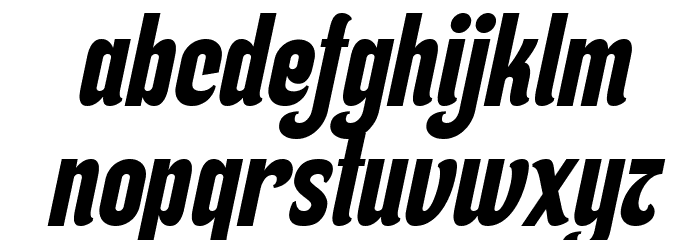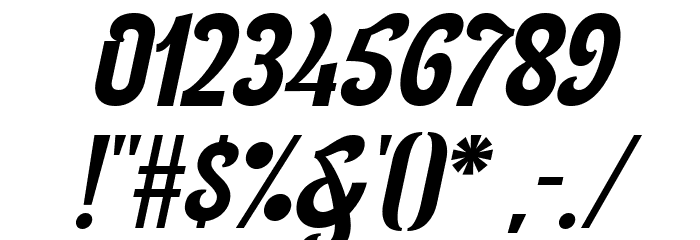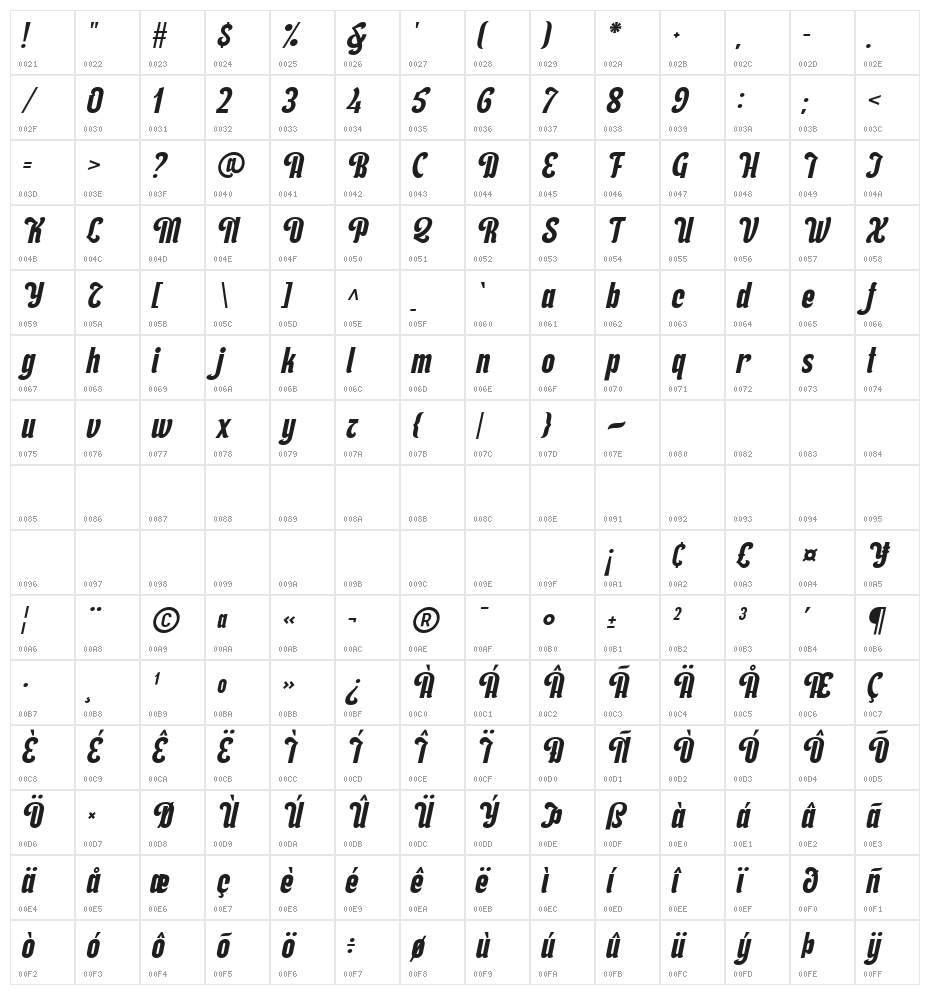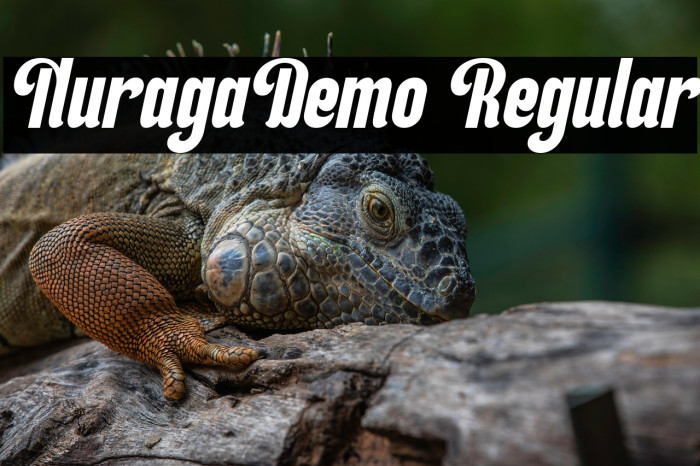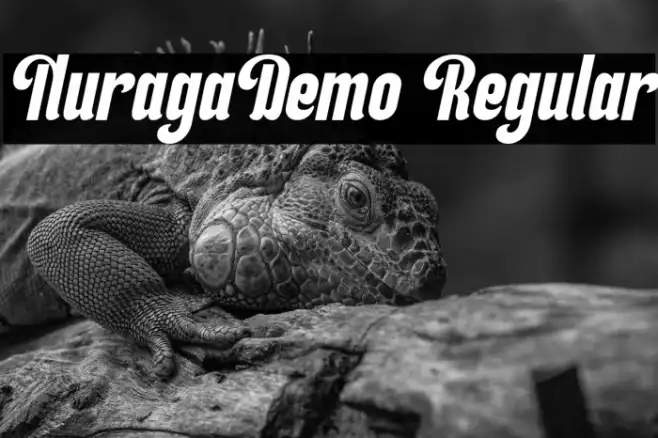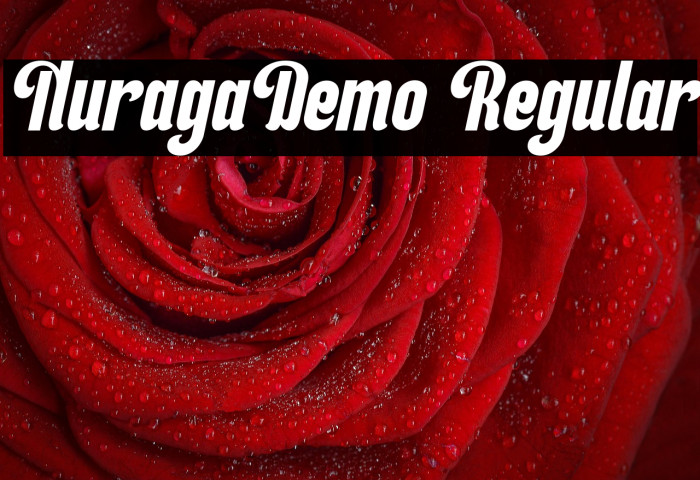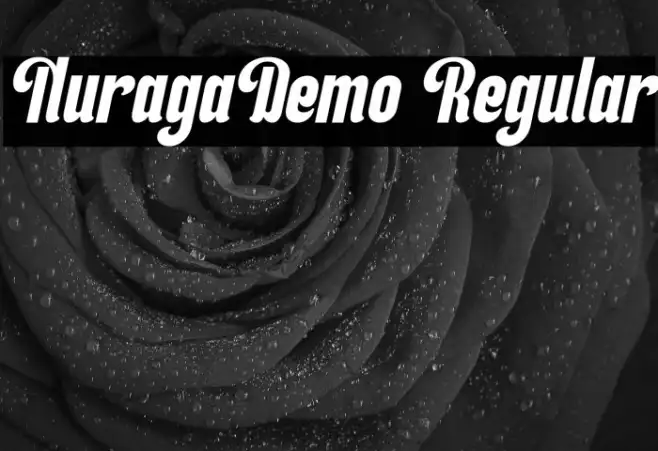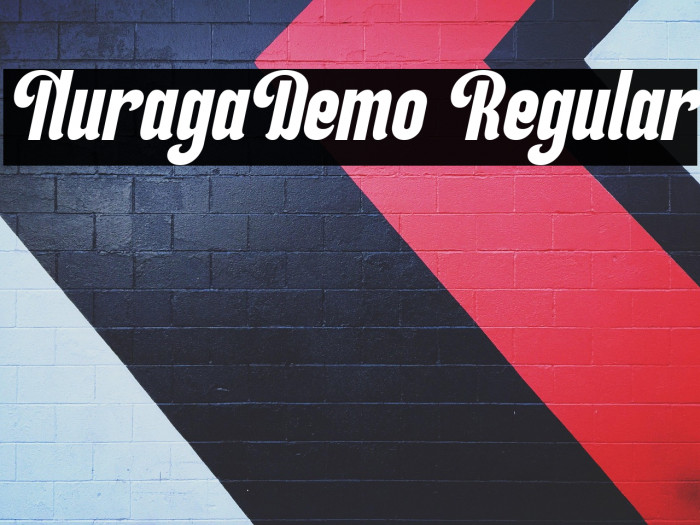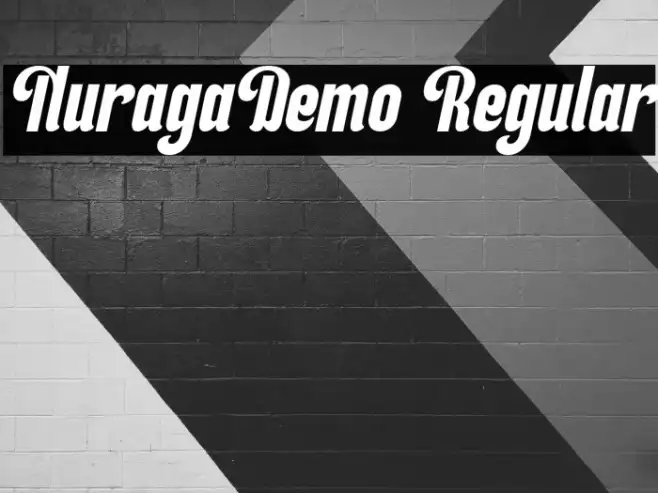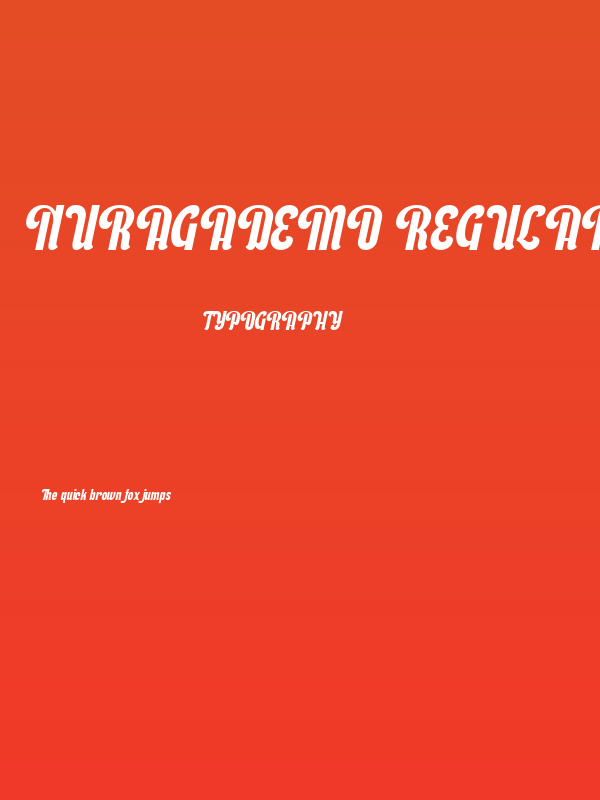
NuragaDemo Regular Font
This font features a bold and dynamic script style with a strong presence. The characters are slightly slanted, giving a sense of motion and fluidity. The strokes are thick and consistent, providing a robust and impactful appearance. The uppercase letters are prominent and commanding, while the lowercase letters maintain a cohesive flow. The numerals and special characters are designed to match the overall bold aesthetic, ensuring uniformity across all elements. This font is ideal for projects that require a strong visual impact and a touch of elegance.
A bold, dynamic script font with a strong and fluid style.
- Proposed Projects: Ideal for branding, headlines, posters, and any design requiring a bold, elegant touch.